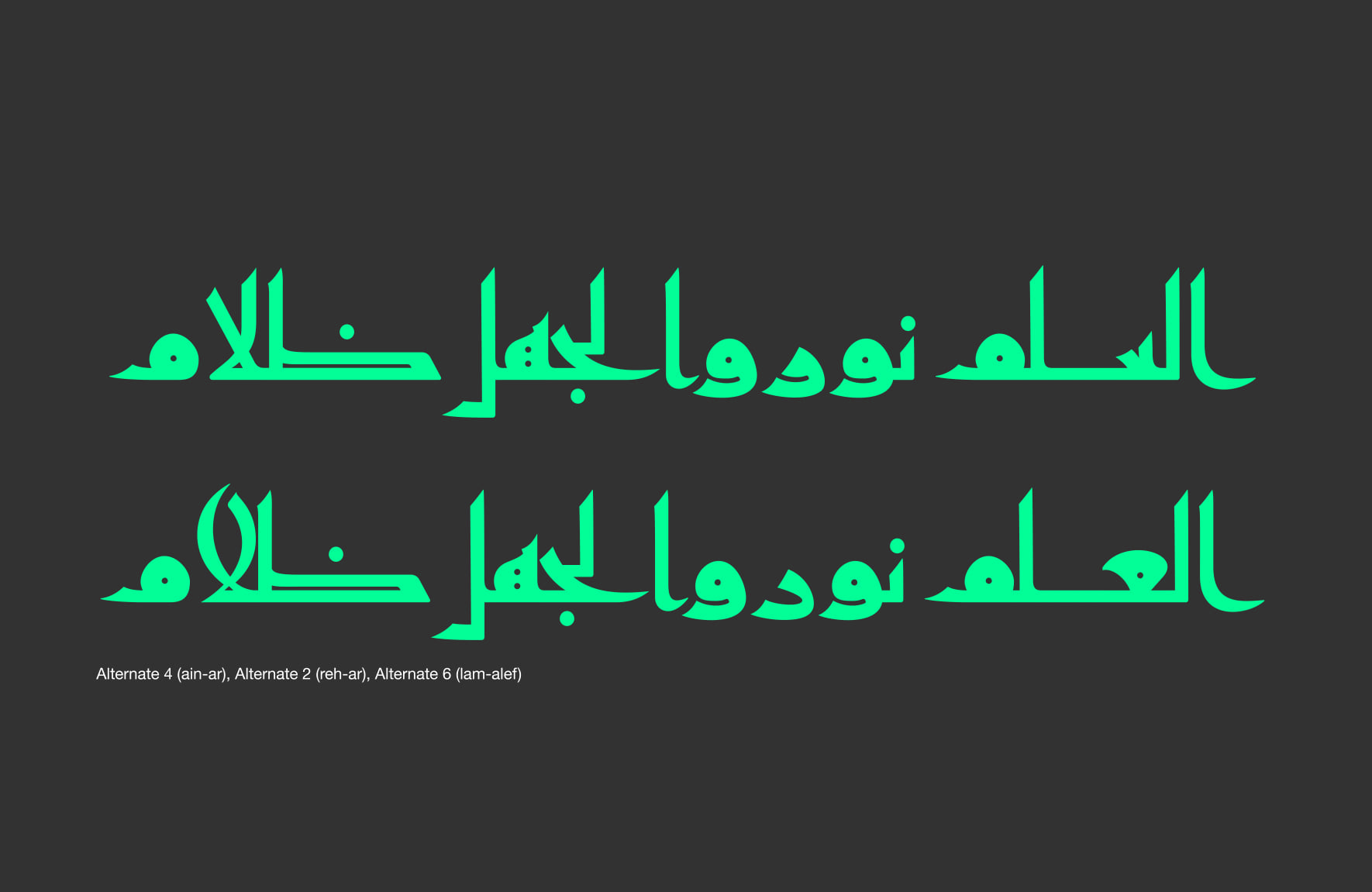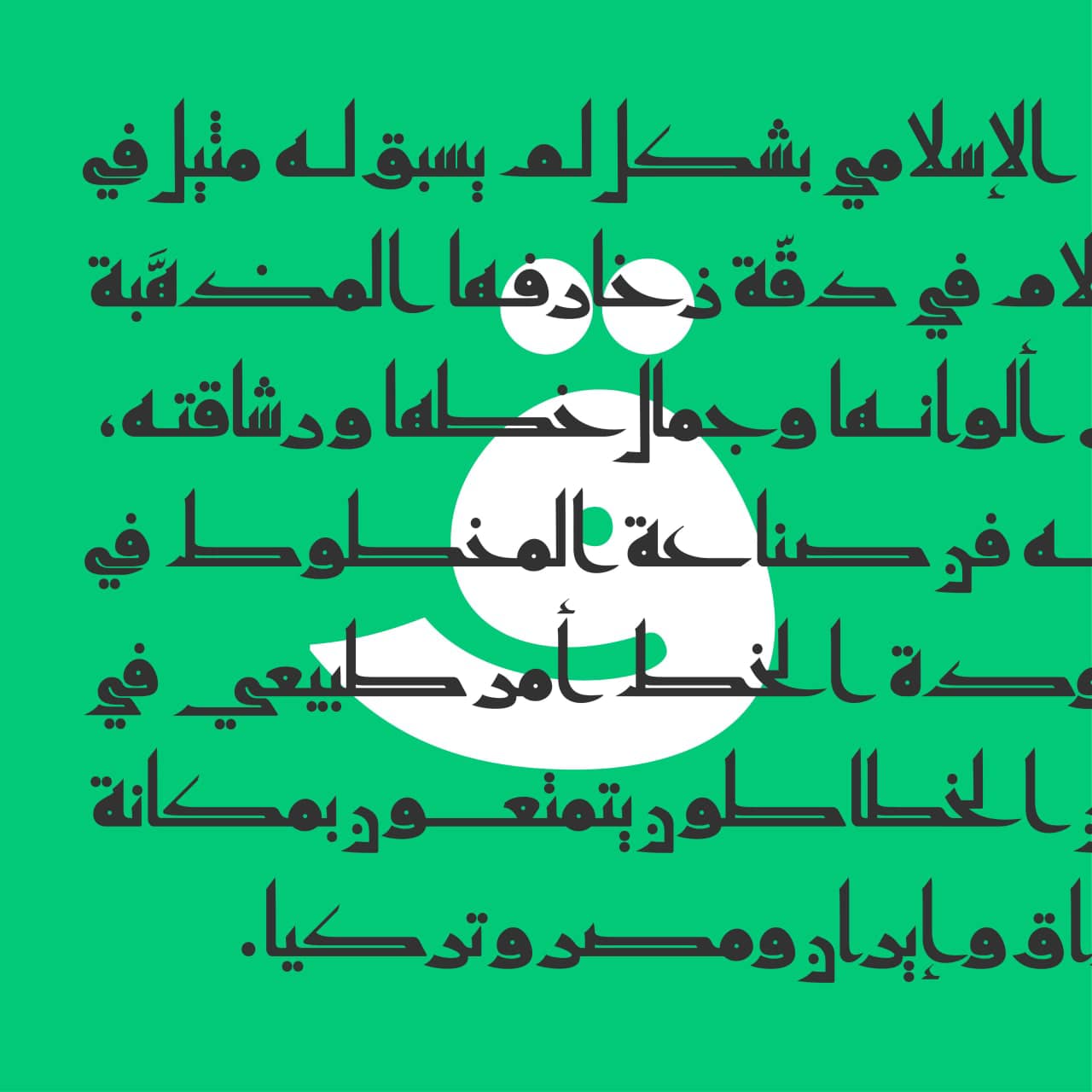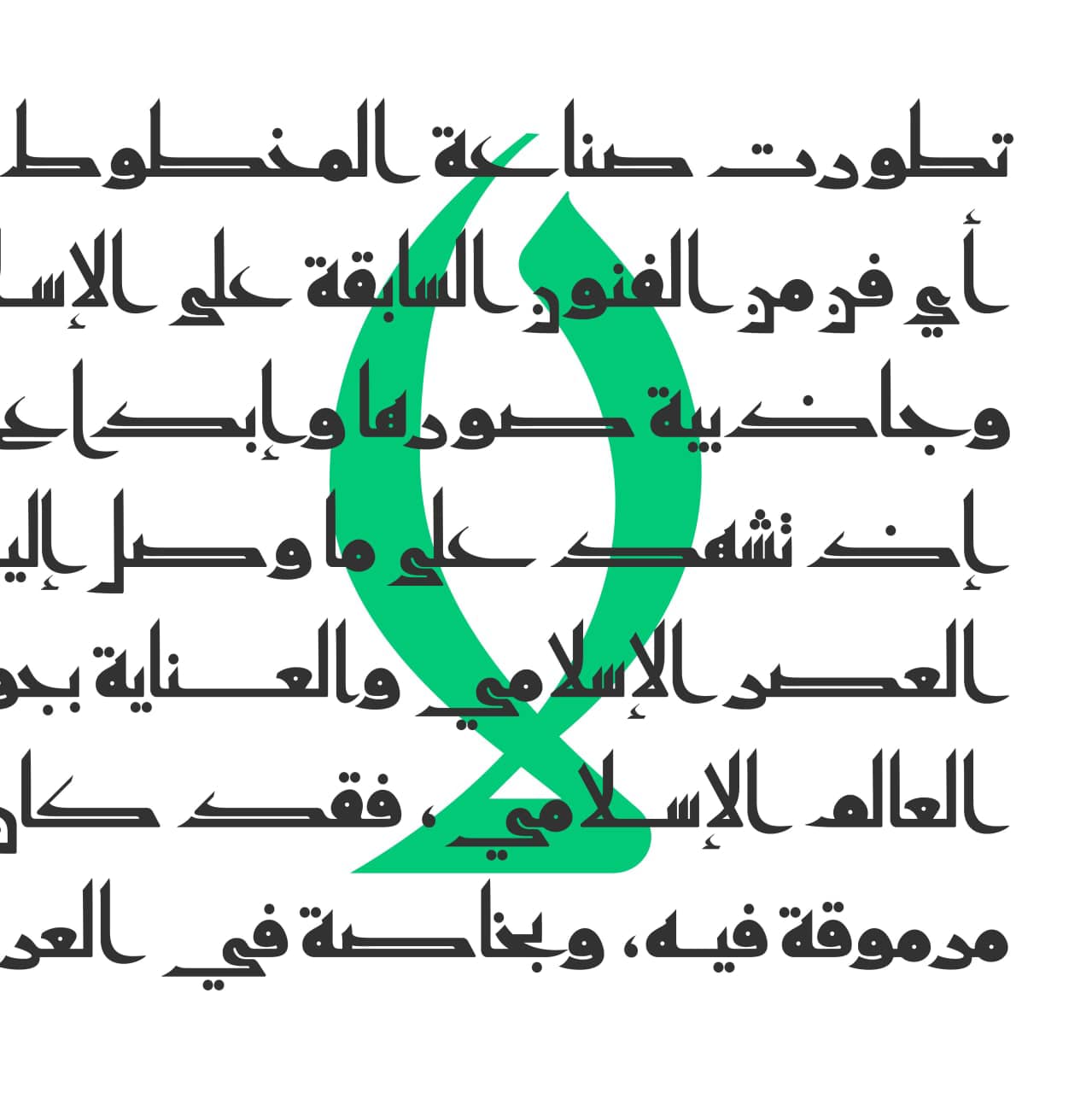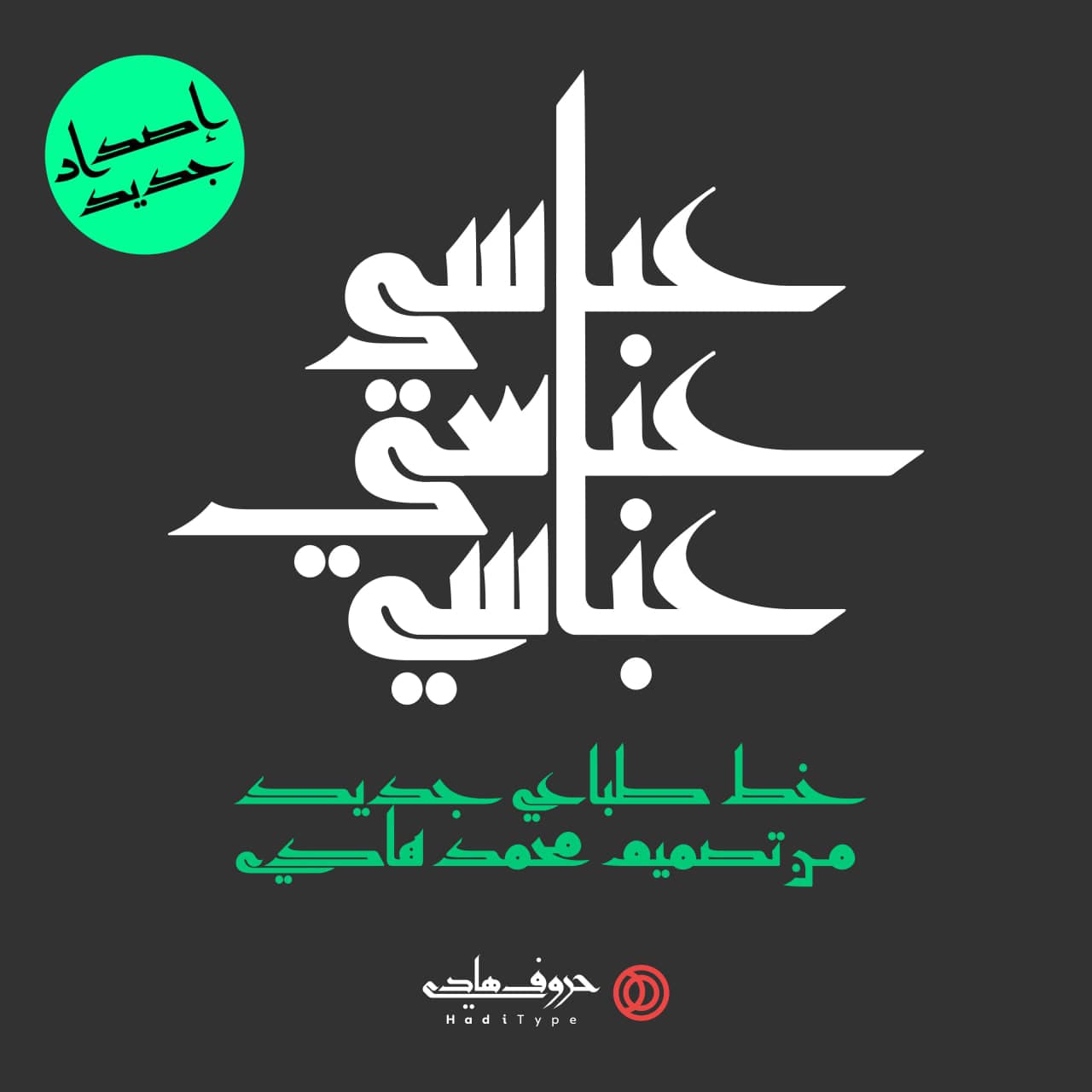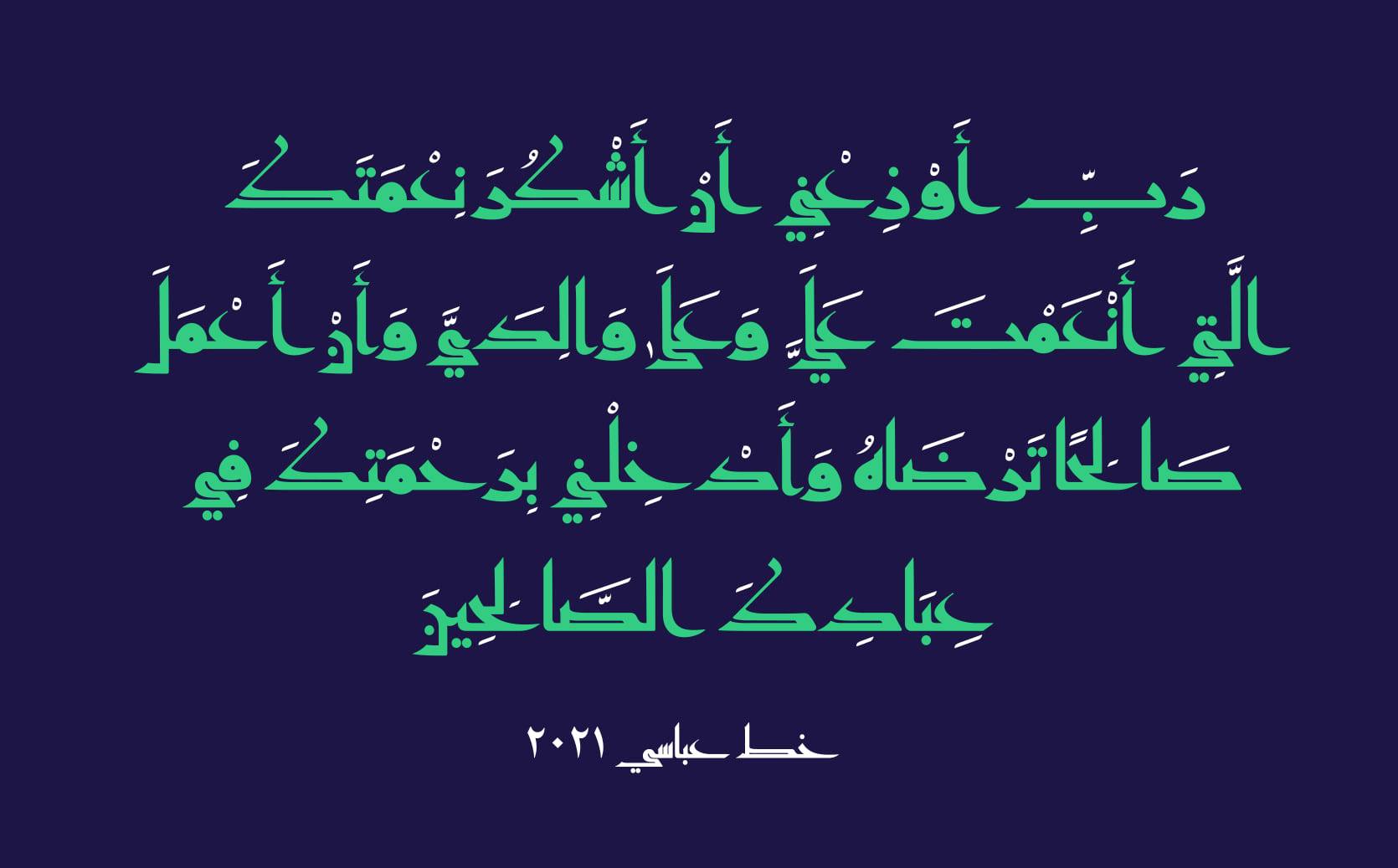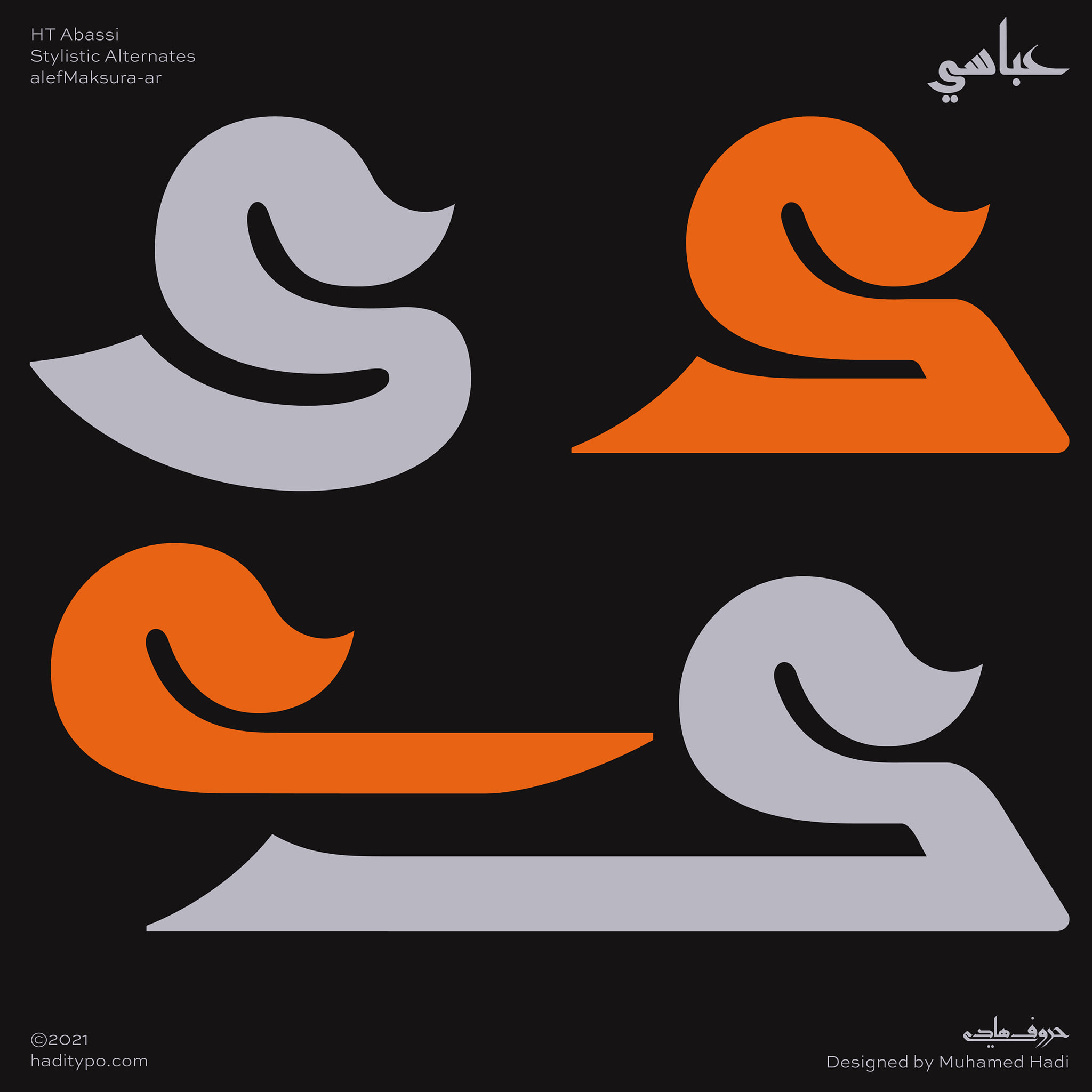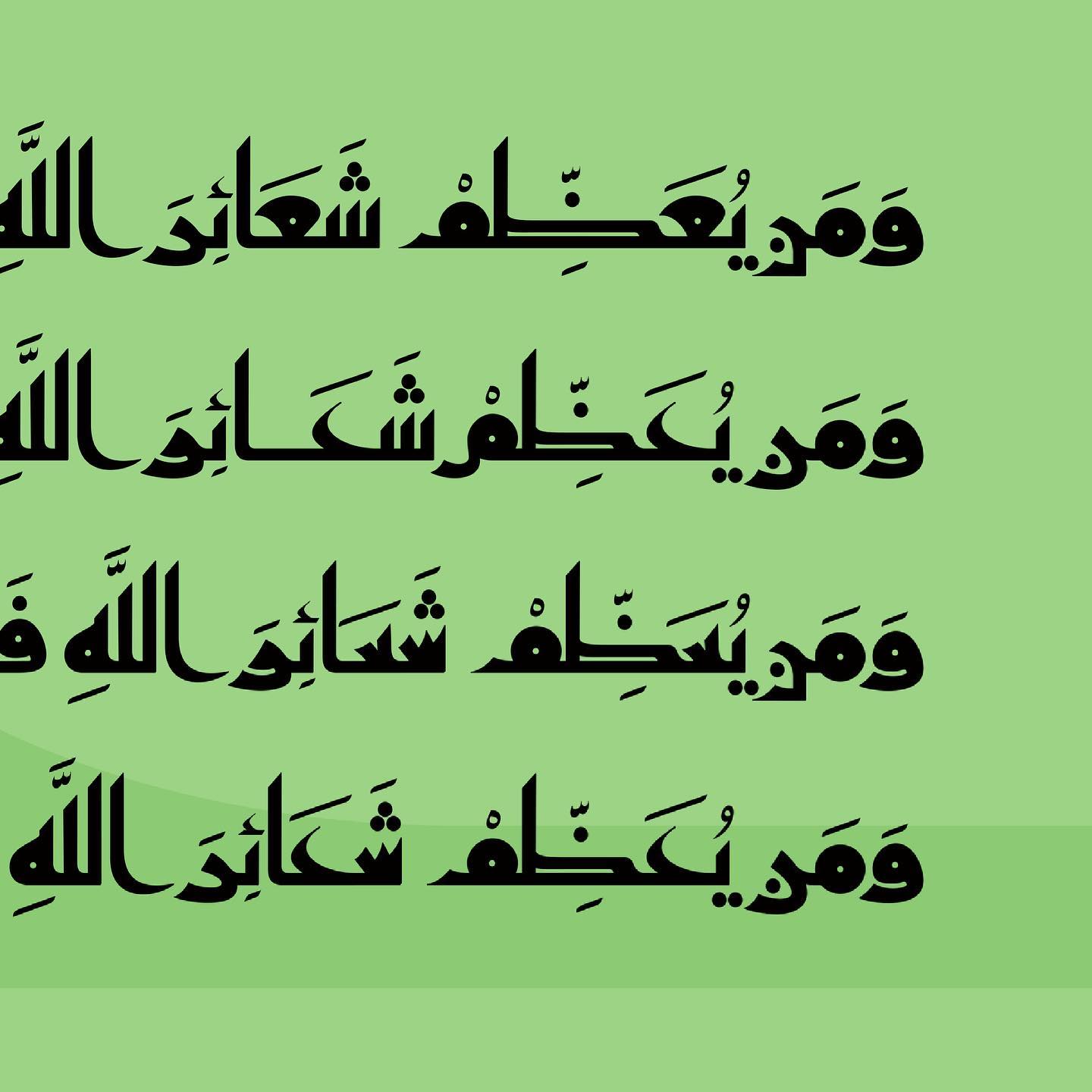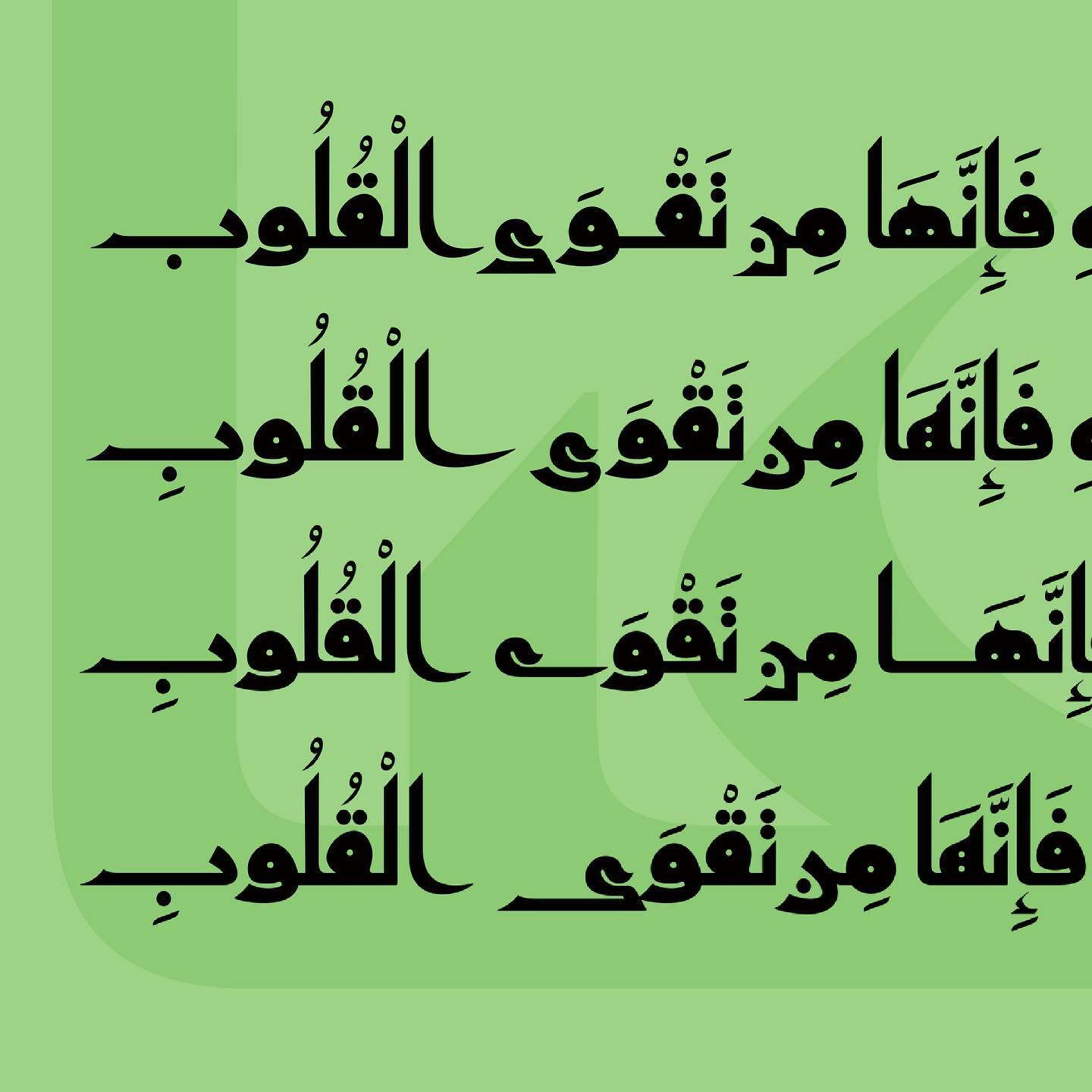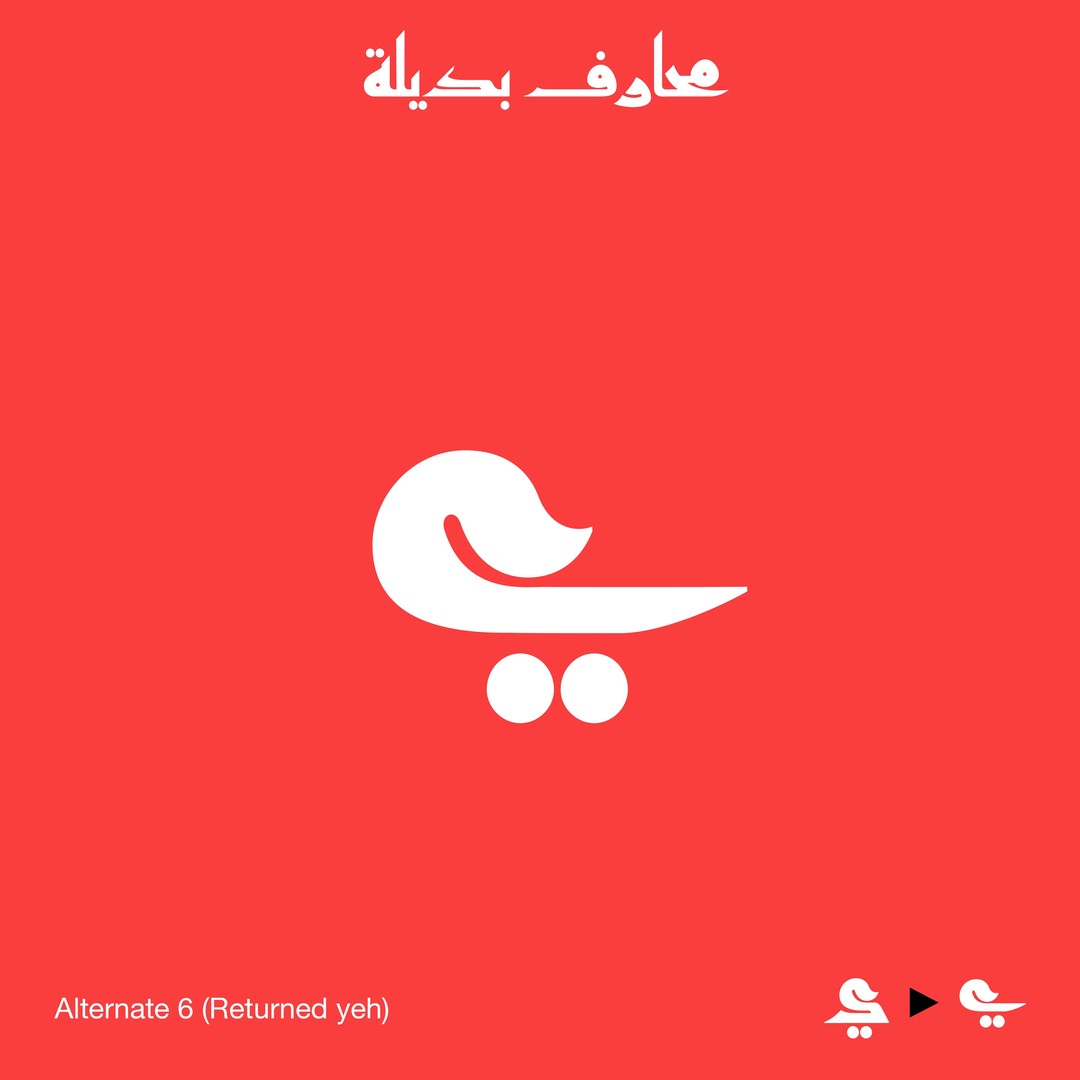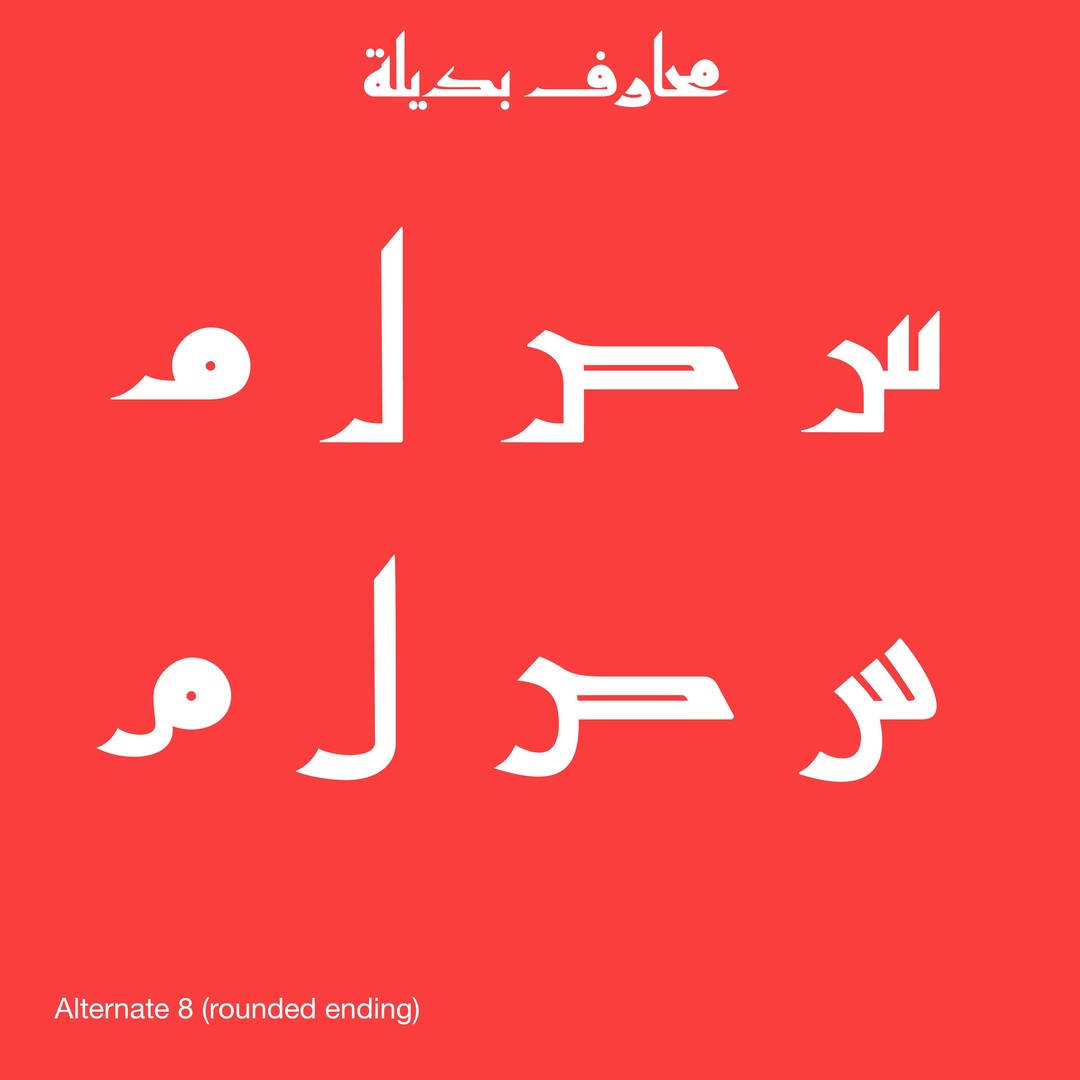
HT Abassi
مثالي للعناوين الرسمية، النشر الثقافي، والهوية المؤسسية الراقية
عباسي – بين القلم والديوان
من العصر الذهبي إلى التصميم الرقمي
عباسي – حروف تحاكي الحضارة
«Abassi» is a modern Arabic headline face Originally developed as a simplified face, its design recalls the Arabic calligraphy works from the 9th–10th century, which were usually written with ink and gold on parchment.
The strong treatment of some letters gives the traditional style a modern feel to the design and more readability and legibility.
The contrasting proportions of the tall vertical strokes and horizontal strokes lend a monumental look to «Abassi», allowing its effective use in titling.
During the years «Abassi» was developed into an Advanced OpenType typeface, with the addition of many alternate forms like (hah, jeem, khah, reh, zain, ain, ghain, seen, sheen & lam_alef) to improve character readability, spacing, and balance.
«Abassi» produced by HadiType Foundry from 2019 to 2021 and drawn by Mohammed hadi